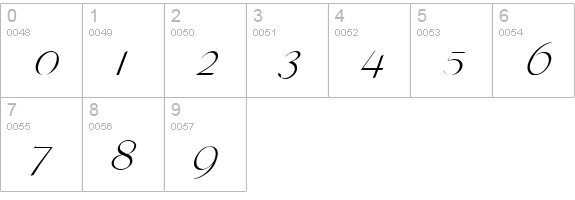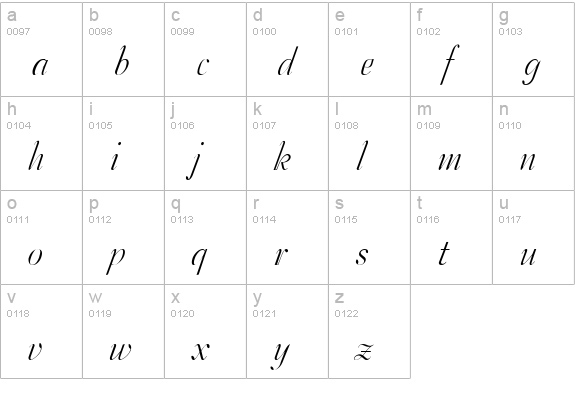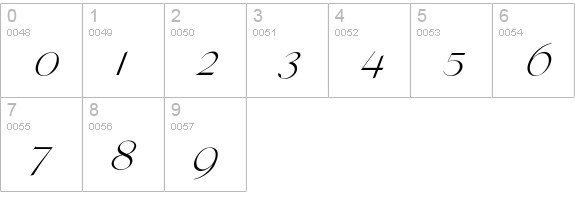
Tango Italic Font Details
Tango Italic is a distinctive, italic variant in the Tango typeface family \xE2\x80\x94 well suited to design and typography projects.
Introducing Tango Italic, a sleek and sophisticated font that adds a touch of elegance to any design project. With its gracefully curved letterforms and slanted angles, Tango Italic effortlessly captures attention and exudes a sense of modernity. This versatile font is perfect for a wide range of applications, from editorial designs and branding materials to digital interfaces and advertisements. Its unique italic style adds a subtle flair, making each word appear dynamic and visually captivating. But what sets Tango Italic apart is not just its impeccable design - it's also the fact that it is completely free. Yes, you read that right! Tango Italic is freely available to download at FontsMarket.com, allowing designers, creatives, and typography enthusiasts to access this remarkable font without any cost. Whether you're a professional designer looking to elevate your projects or a hobbyist searching for the perfect font to express your creativity, Tango Italic is a must-have addition to your font library. Embrace the beauty of this font and let its versatility inspire your next design masterpiece. Download Tango Italic today and experience the freedom of limitless creativity.